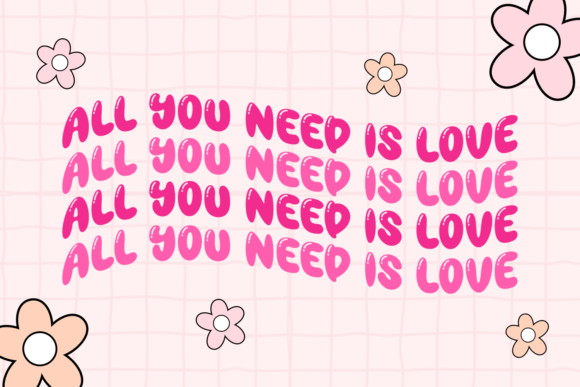
Smooty Bubbles Font
Smooty Bubbles is a delightfully cute bubble font that brings a playful charm to your projects. With its rounded and friendly characters, it’s perfect for adding a touch of whimsy to invitations, posters, or any design that calls for a lighthearted feel. Embrace the fun side of typography with Smooty Bubbles and let your text bubble with personality!